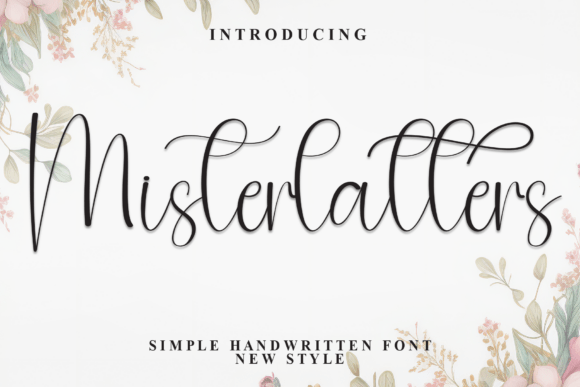
Misterlatters Font: Elevate Your Design with Elegance and Calm
In the world of typography, fonts play a crucial role in conveying the tone and personality of a brand or design. For those seeking a font that exudes elegance, calmness, and a touch of sophistication, Misterlatters is an excellent choice. This beautiful handwritten script font is perfect for a variety of applications, including wellness branding, invitations, social media quotes, and more. In this article, we’ll explore the features and benefits of Misterlatters, and how it can elevate your typography projects.
What is Misterlatters Font?
Misterlatters is a graceful handwritten script font that flows with elegance and calm. Its smooth curves and sophisticated flourishes bring a sense of peace and beauty to your typography projects. The font’s design is characterized by its:
- Smooth curves: Misterlatters features smooth, flowing curves that give it a soft and approachable feel.
- Sophisticated flourishes: The font’s flourishes add a touch of elegance and sophistication, making it perfect for high-end branding and design projects.
- Handwritten feel: Misterlatters has a warm, handwritten feel that makes it perfect for designs that require a personal touch.
Perfect for Wellness Branding and More
Misterlatters is an excellent choice for a variety of design applications, including:
- Wellness branding: The font’s calm and elegant feel makes it perfect for wellness brands, yoga studios, and health-related businesses.
- Invitations: Misterlatters is ideal for creating beautiful, elegant invitations for weddings, parties, and other special events.
- Social media quotes: The font’s smooth curves and sophisticated flourishes make it perfect for creating inspiring and uplifting social media quotes.
- Typography projects: Misterlatters can be used for a wide range of typography projects, including posters, flyers, brochures, and more.
The Benefits of Using Misterlatters Font
There are several benefits to using Misterlatters font in your design projects:
- Elegance and sophistication: Misterlatters adds a touch of elegance and sophistication to your designs, making them perfect for high-end branding and design projects.
- Calm and peaceful feel: The font’s calm and peaceful feel makes it perfect for designs that require a soothing and relaxing atmosphere.
- Versatility: Misterlatters can be used for a wide range of design applications, from wellness branding to social media quotes.
- Easy to read: The font’s smooth curves and clear design make it easy to read, even at small sizes.
Tips and Tricks for Using Misterlatters Font
Here are some tips and tricks for getting the most out of Misterlatters font:
- Use it with a simple background: Misterlatters looks best with a simple background that doesn’t compete with the font’s elegant design.
- Experiment with font sizes: The font’s smooth curves and clear design make it easy to read at a variety of font sizes.
- Pair it with other fonts: Misterlatters can be paired with other fonts to create a unique and interesting design.
- Use it consistently: To create a cohesive brand identity, use Misterlatters consistently across all your design materials.
Misterlatters Font Details
Here are some key details about Misterlatters font:
- Font style: Handwritten script font
- Font weight: Light to bold
Misterlatters font is a beautiful and elegant handwritten script font that is perfect for a variety of design applications. Its smooth curves and sophisticated flourishes bring a sense of peace and beauty to your typography projects. With its versatility, ease of use, and elegant design, Misterlatters is an excellent choice for designers and brands looking to elevate their typography and create a lasting impression.